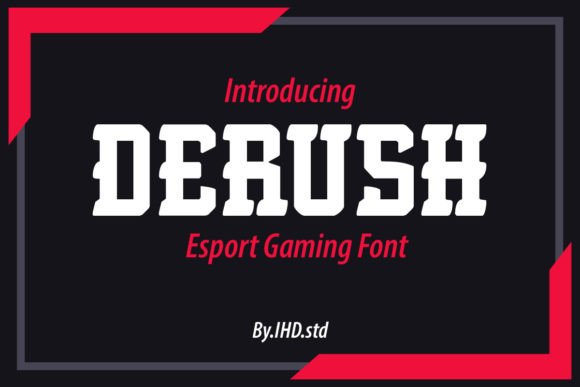
Unleash your creativity and make a statement with Derush Esport, the ultimate display font for poster design. This extraordinary typeface, meticulously crafted by the talented IHD.STD, is a game-changer in the world of typography. As a display font, Derush Esport possesses an undeniable charm that captivates and engages audiences, making it the perfect choice for creating posters that leave a lasting impression.
With its distinctive style, Derush Esport effortlessly commands attention. Its bold and striking characters exude strength and confidence, while its carefully crafted details add a touch of sophistication. This font is a symphony of visual intrigue, seamlessly blending sharp edges with sweeping curves to create a dynamic and captivating aesthetic.
More than just a font, Derush Esport is an artistic expression that elevates your designs to new heights. Its versatility extends beyond posters, making it an ideal choice for branding, logos, social media graphics, and any project that demands a bold and distinctive visual presence.
With Derush Esport, you have the power to transform your creative visions into captivating realities. Its distinct character set, including uppercase, lowercase, numerals, and a comprehensive range of symbols, empowers you to craft designs that speak volumes.
Immerse yourself in the world of Derush Esport and unlock the limitless possibilities it offers. Embrace the creativity within you and let your designs shine with a brilliance that captivates and inspires. Whether you're a seasoned designer or just starting your creative journey, Derush Esport is the key to unlocking your true potential.